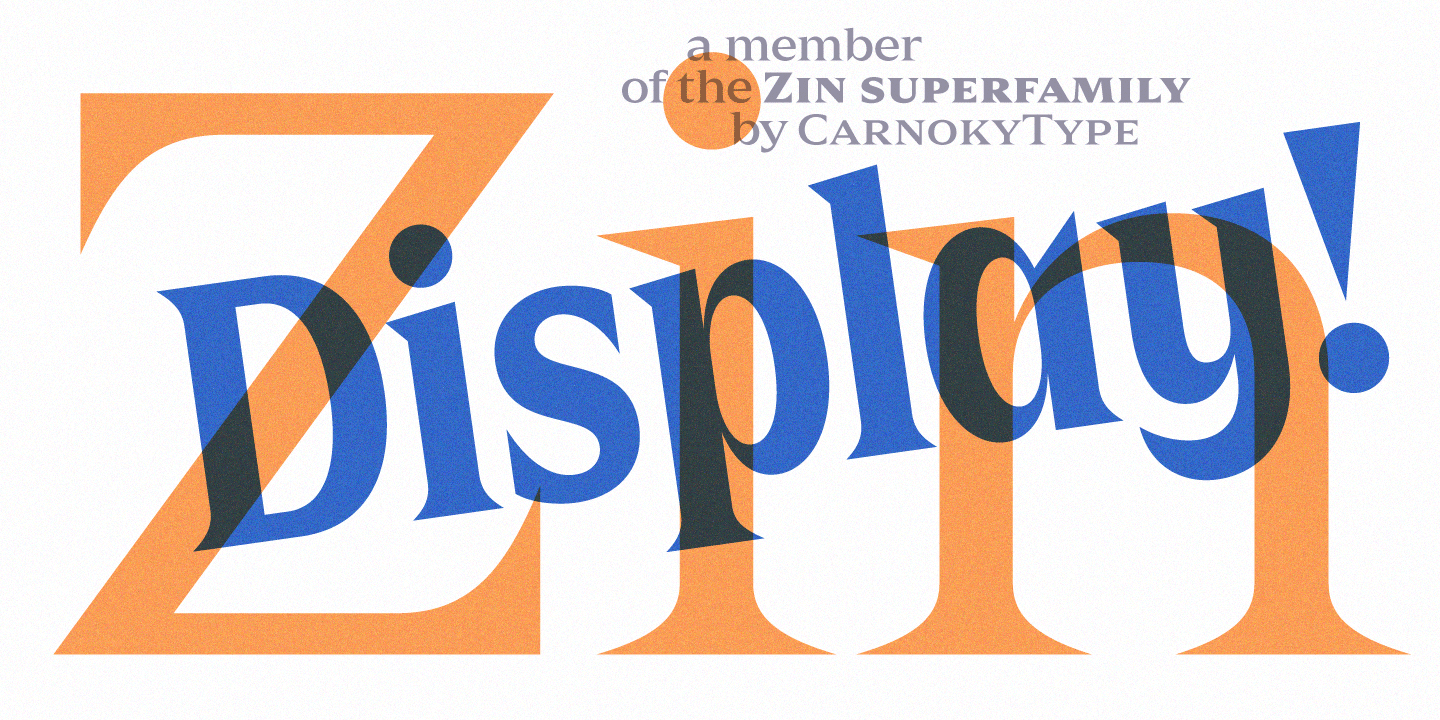
This striking font is perfect for magazine headlines, poster design, luxury brand identities, editorial layouts, fashion campaigns, architectural signage, contemporary advertising, and sophisticated display applications. Its commanding character makes it ideal for projects requiring bold visual impact with refined sophistication.
Zin Display Font is exciting because it achieves perfect balance between dramatic presence and elegant restraint with letterforms designed specifically for large-scale applications and headline impact. The font features strong geometric construction, optimized contrast, and carefully refined details that ensure exceptional readability at display sizes while maintaining sophisticated character. Its contemporary aesthetic appeals to modern audiences while delivering the visual power necessary for effective brand communication.
The Zin Display Font family typically includes multiple weights from light to black, along with condensed variations and extended character sets optimized for international applications. Many versions feature stylistic alternates, professional ligatures, and display-specific spacing that enhance its performance in large-format design.
Whether you're developing high-impact advertising campaigns, prestigious editorial projects, or contemporary brand identities, Zin Display Font Free Download provides commanding sophistication with professional reliability. This typeface transforms headlines into powerful statements that capture attention and convey authority across all media platforms. Its versatile character ensures consistent brand recognition while maintaining exceptional legibility at any size, making it an indispensable resource for designers who require Zin Display Font Free Download that delivers maximum visual impact with refined elegance in today's competitive marketplace.